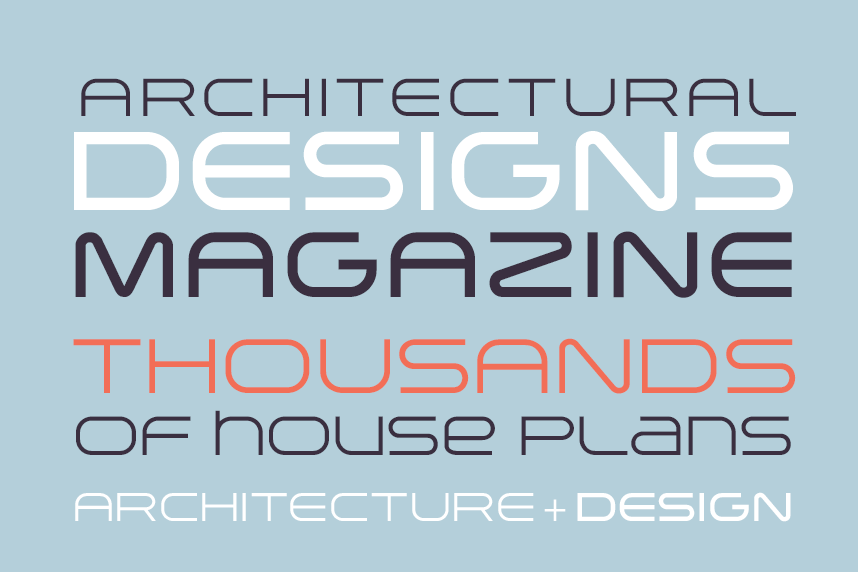
Arkitech Font
A futuristic extended display sans, suitable for sci fi interfaces, hi tech logos and others. Reworked from the ground up from the first version (from 2009) and it now includes Greek support.